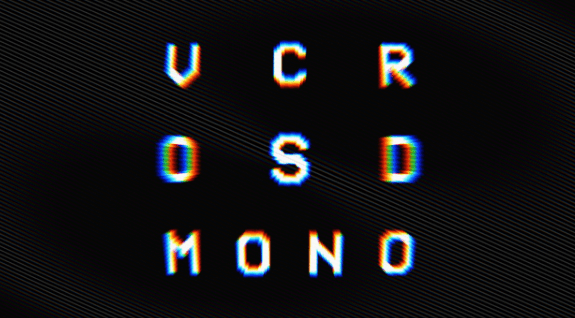
VCR OSD Mono Font Family is a fresh Display font that is creator of Riciery Leal, drew inspiration from the cool American logo styles of the 1970s.
This font contains 207 stylish characters and 153 unique glyphs that are perfect for any design and text design purposes. Palatino Linotype is the version of the font integrated with Microsoft merchandise and has been altered moderately from the common for the most reliable show on monitors.
Vcr Osd Mono Font